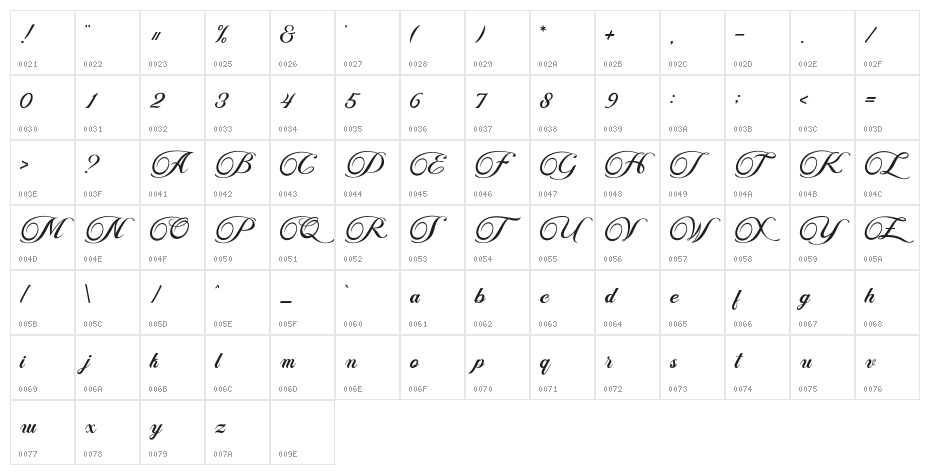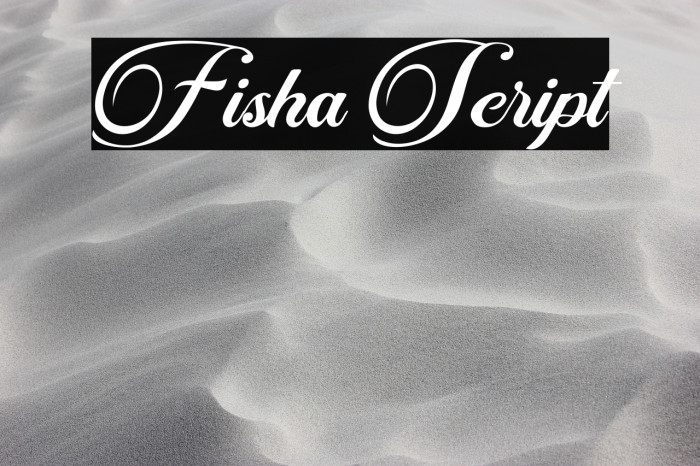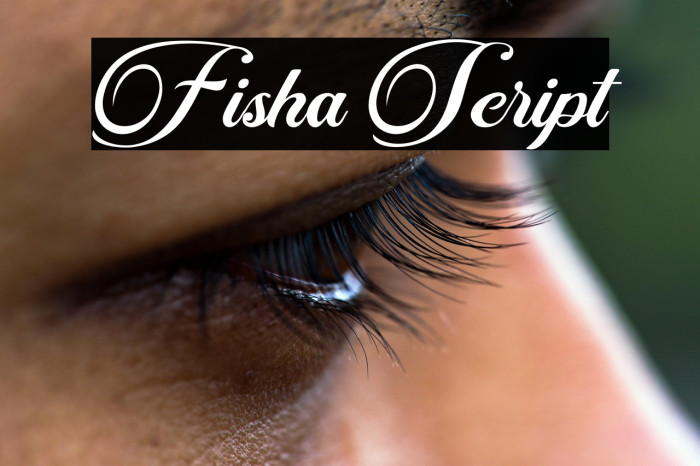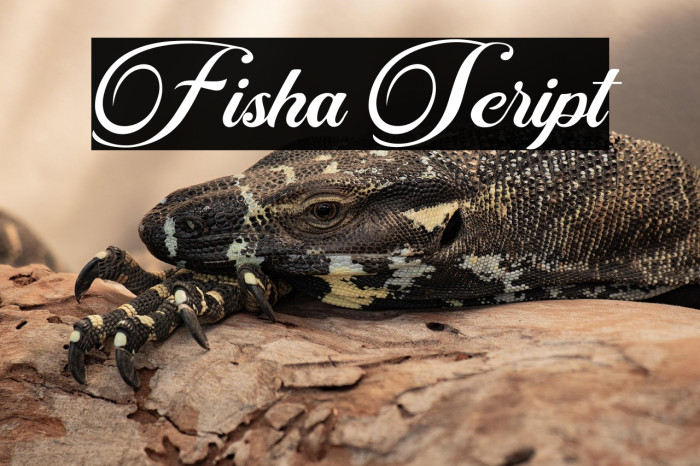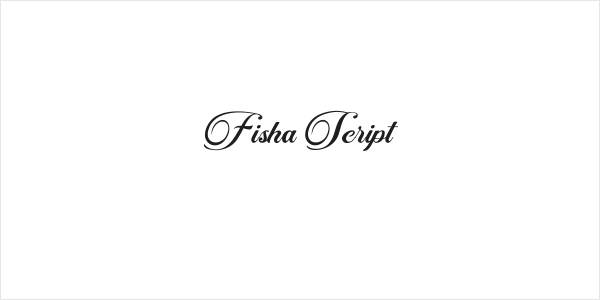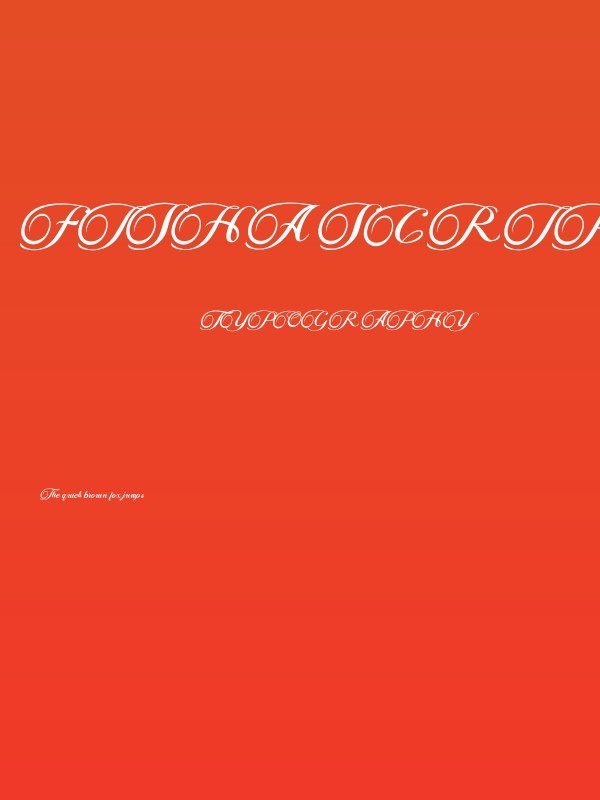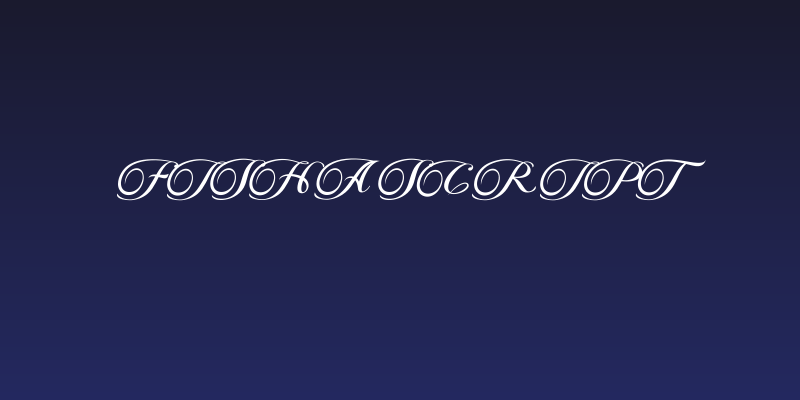
Fisha Script Font
Fisha Script Description
This elegant script font features a flowing, cursive style with a sophisticated and artistic flair. The uppercase letters are intricately designed with elaborate loops and swirls, giving them a decorative and ornate appearance. The lowercase letters maintain a smooth and connected flow, enhancing readability while retaining a stylish look. The numerals are consistent with the script style, offering a harmonious blend with the alphabet. Special characters are thoughtfully crafted to match the overall aesthetic, making this font suitable for creative and formal applications.
| Use Case | Logos, Invitations, Decorative text |
| Proposed Projects | Ideal for wedding invitations, elegant branding, greeting cards, and decorative posters. |